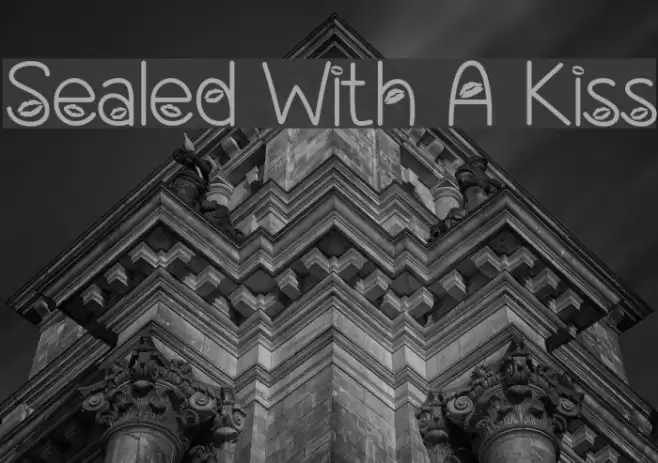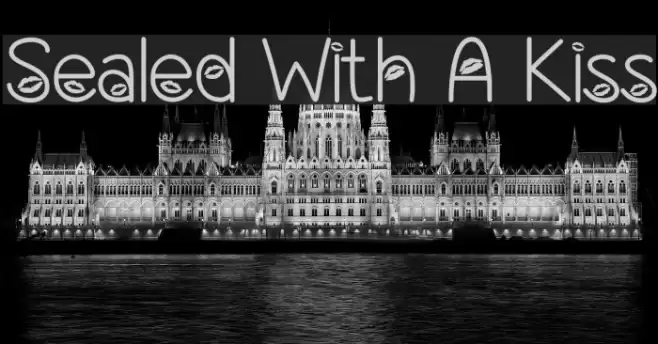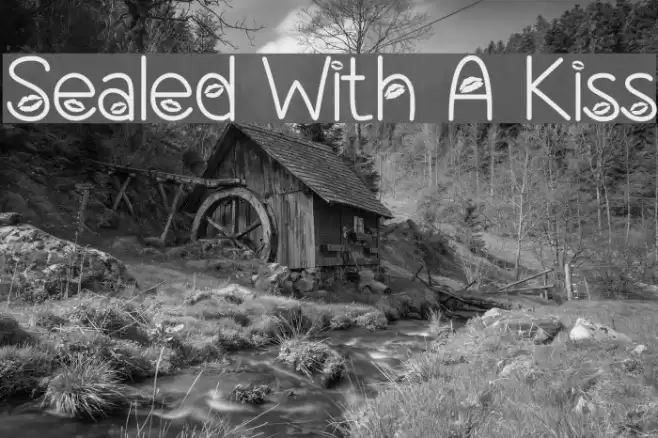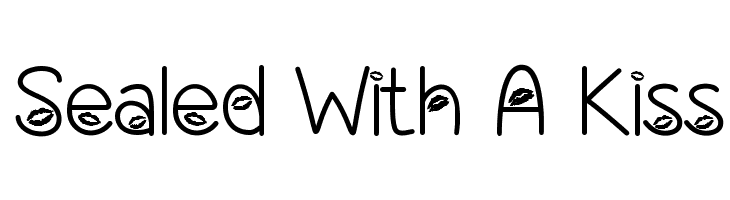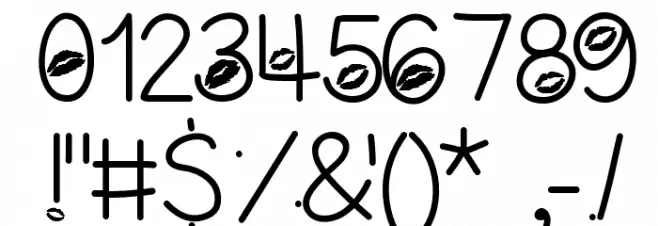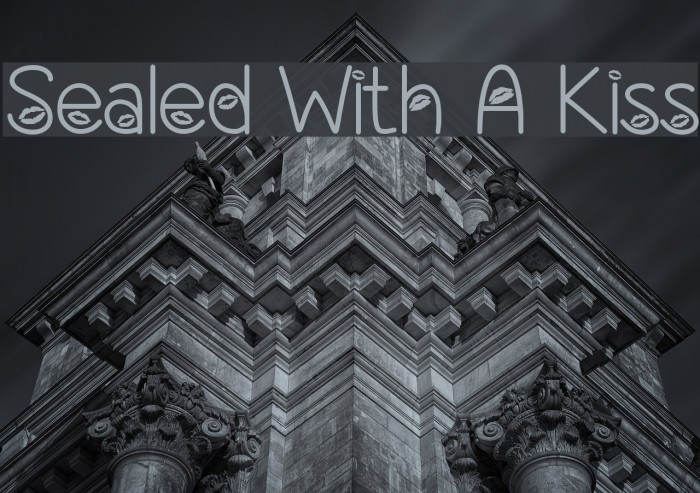
Sealed With A Kiss
This playful and whimsical font features a unique design where each letter is adorned with a small kiss mark, adding a touch of romance and fun. The characters are rounded and slightly elongated, giving them a friendly and approachable appearance. The font maintains a consistent stroke width, ensuring readability while still being decorative. It includes both uppercase and lowercase letters, numbers, and a variety of special characters, making it versatile for different uses. The kiss motif is seamlessly integrated into the design, making it ideal for projects that require a lighthearted and affectionate touch.
A playful font with kiss marks on each letter, perfect for romantic and fun designs.
- Proposed Projects: Ideal for greeting cards, wedding invitations, love-themed posters, and playful branding.
- Overall Style: Decorative